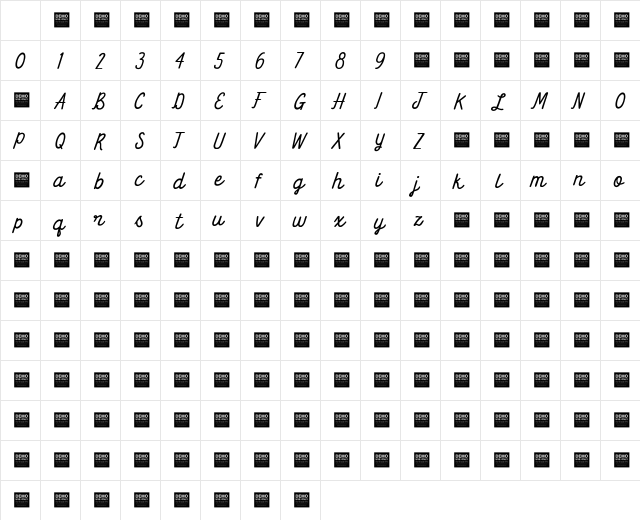
Complete Keep Going - Demo Regular glyph index. Displaying only characters natively supported by Keep Going - Demo Regular font.
Keep Going - Demo is a composed and adaptable typeface that performs quietly and consistently across a wide range of design contexts.